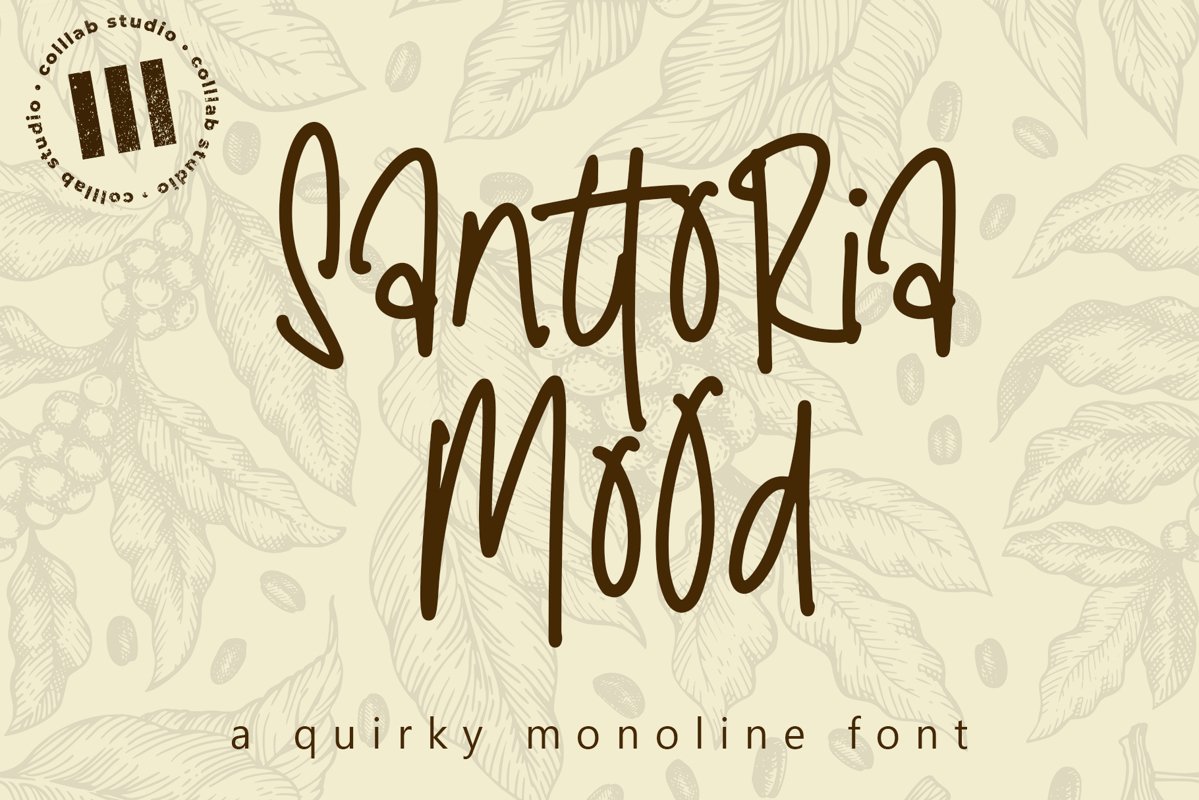
Santtoria Mood - A Quirky Monoline Font
Santtoria Mood
Santtoria Mood is an exquisite handwritten font, masterfully designed to become a true favorite. It maintains its classy calligraphic influences while feeling contemporary and fresh. Fall in love with it and bring your projects to the highest levels!